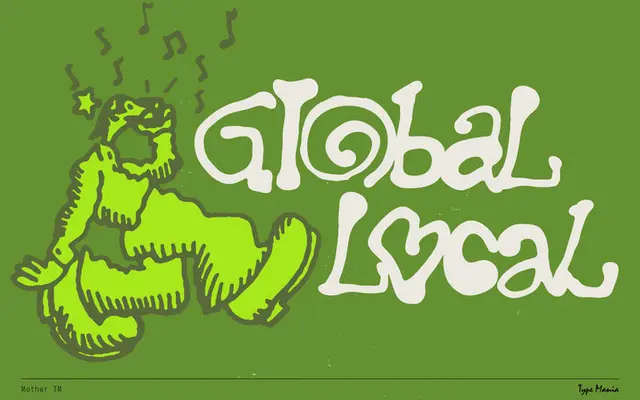
Mother TM
An organic hand-drawn display face with ink bleeds and two contextual stylistic sets that alternate automatically as you type.
Drawn with visible ink bleed and hand-crafted irregularity, this display face from Type Mania leans into texture and spontaneity. Contextual Alternates cycle between two distinct stylistic sets automatically, introducing rhythm and variation without manual intervention. With 249 glyphs covering Latin diacritics, numbers, punctuation and currency, it covers most Latin-based language needs for headline and expressive typographic work.
An organic display face with ink bleeds and hand-drawn character, designed for expressive headline use rather than continuous text. Two alternating stylistic sets reinforce its informal, craft-inflected nature.